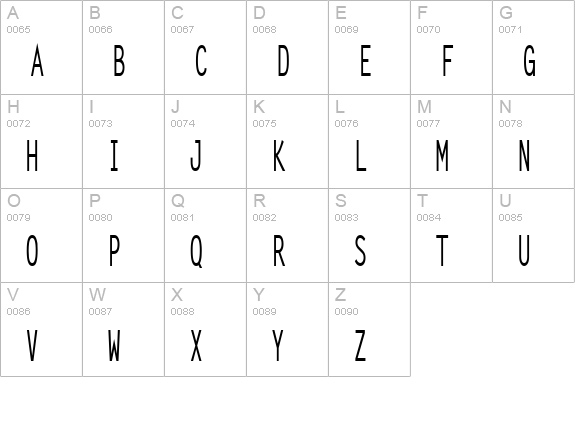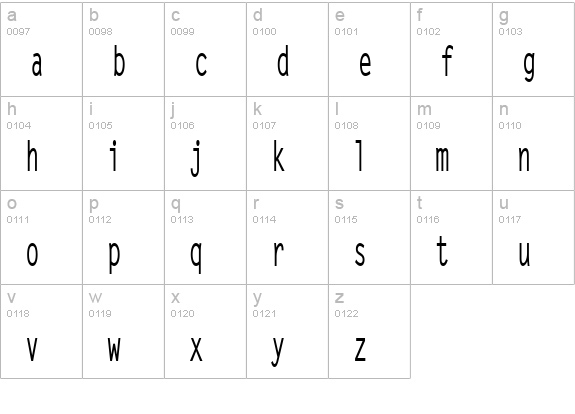
Lechter Thin Bold is a delicate, low-contrast variant in the Lechter typeface family \xE2\x80\x94 well suited to fashion editorial, minimal branding, and high-contrast display.
Introducing Lechter Thin Bold, a stunning font that effortlessly combines sleekness and boldness. This font is the perfect choice for those seeking a modern and sophisticated look in their designs. With its thin yet bold letterforms, Lechter Thin Bold adds a touch of elegance to any project. What makes Lechter Thin Bold even more appealing is that it is freely available to download at FontsMarket.com. Yes, you heard it right, this incredible font can be yours without any cost! Whether you are a graphic designer, a web developer, or simply someone who loves experimenting with typography, Lechter Thin Bold offers endless possibilities. The meticulously crafted letterforms of Lechter Thin Bold exude confidence and professionalism. Its clean and crisp lines make it highly legible, even at smaller sizes. The subtle curves and sharp edges of each character create a harmonious balance, making Lechter Thin Bold a versatile font that can be used for a wide range of applications. From branding projects to editorial design, Lechter Thin Bold will make your work stand out from the crowd. Its bold and eye-catching presence will instantly grab attention and leave a lasting impression. Whether used in headlines, logos, or body text, this font commands authority and demands attention. So, don't miss out on this amazing opportunity to enhance your designs with Lechter Thin Bold. Head over to FontsMarket.com and download this font for free. With its unique blend of thinness and boldness, Lechter Thin Bold will take your designs to new heights, leaving a lasting impact on your audience.